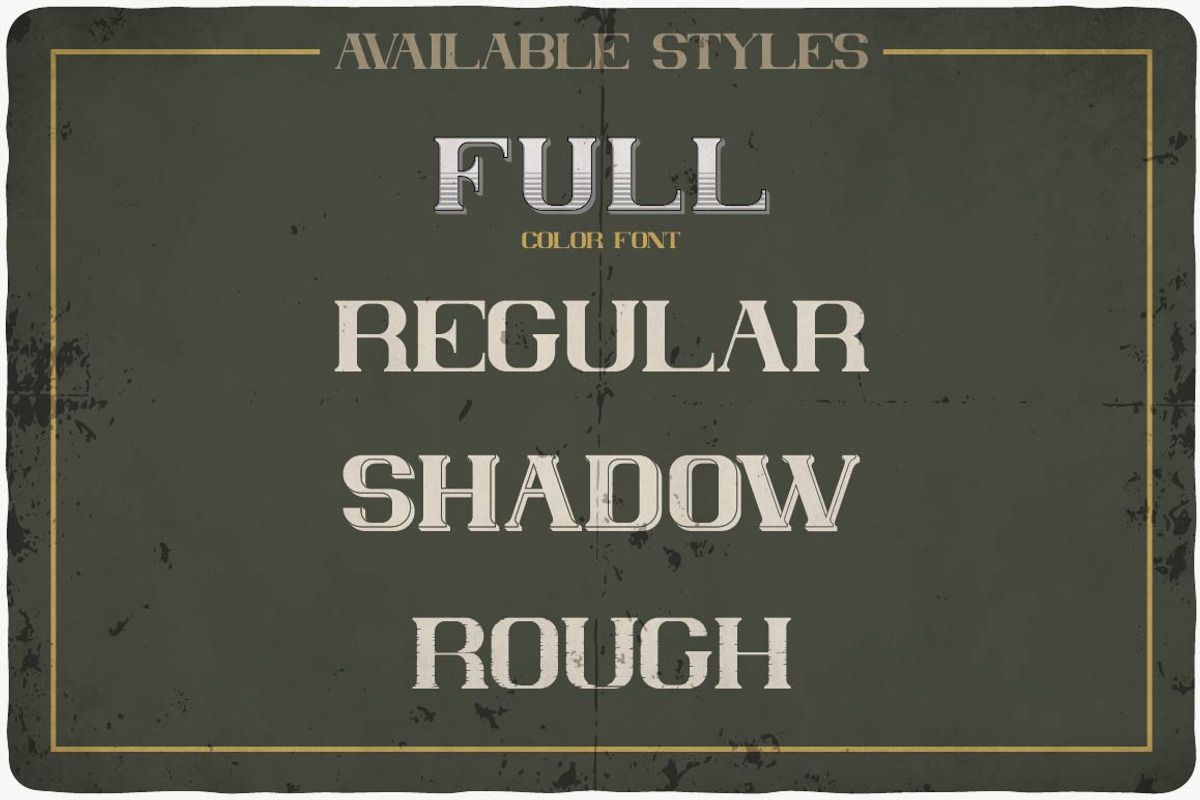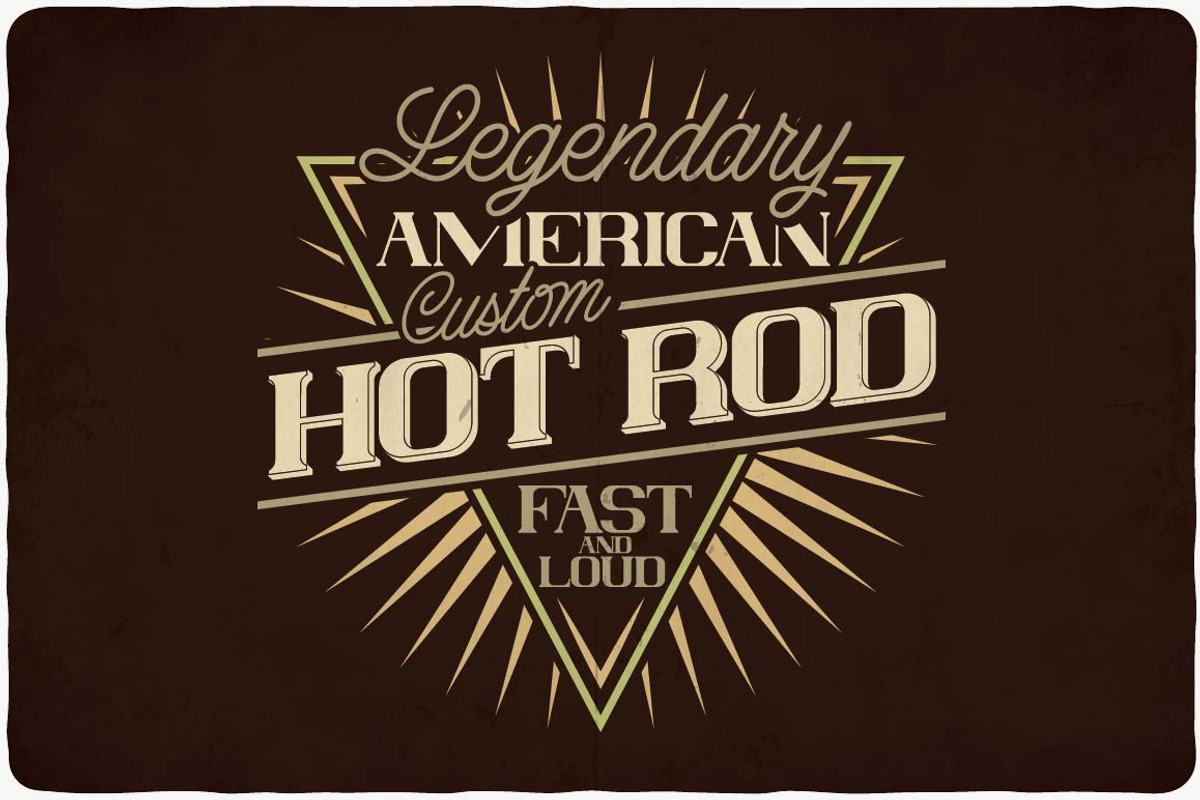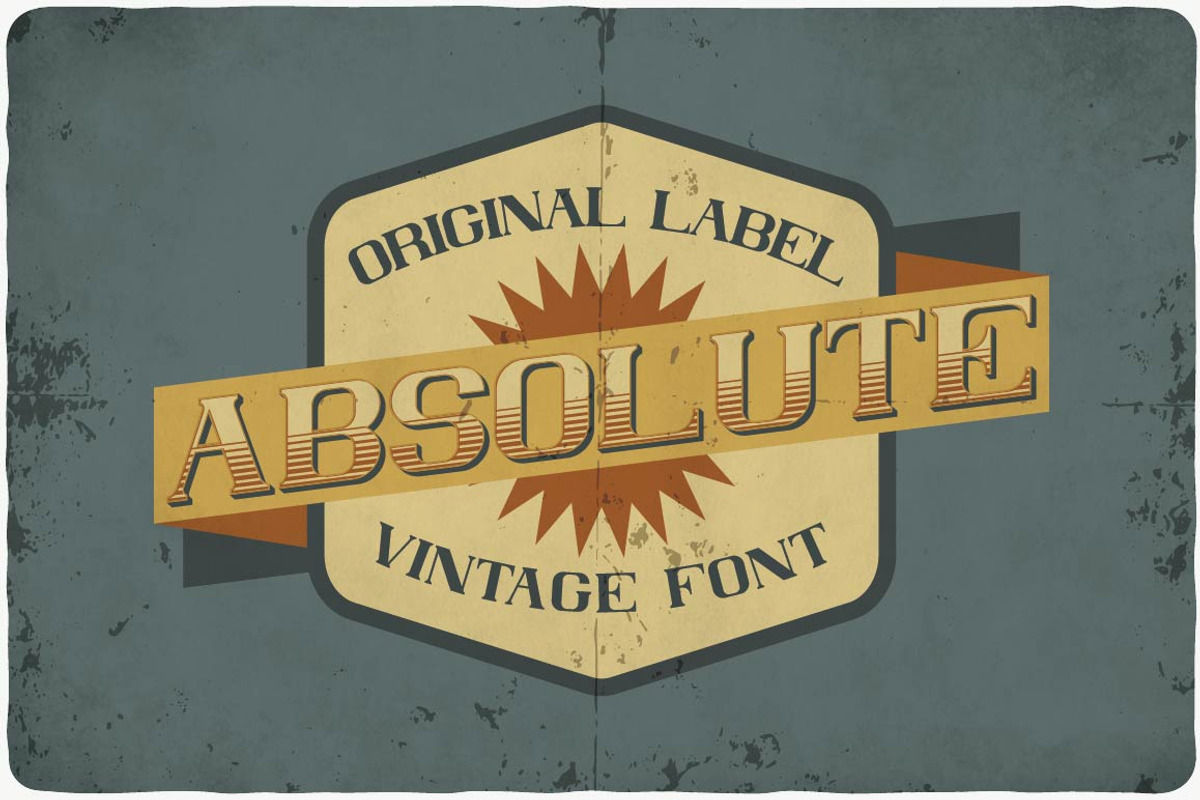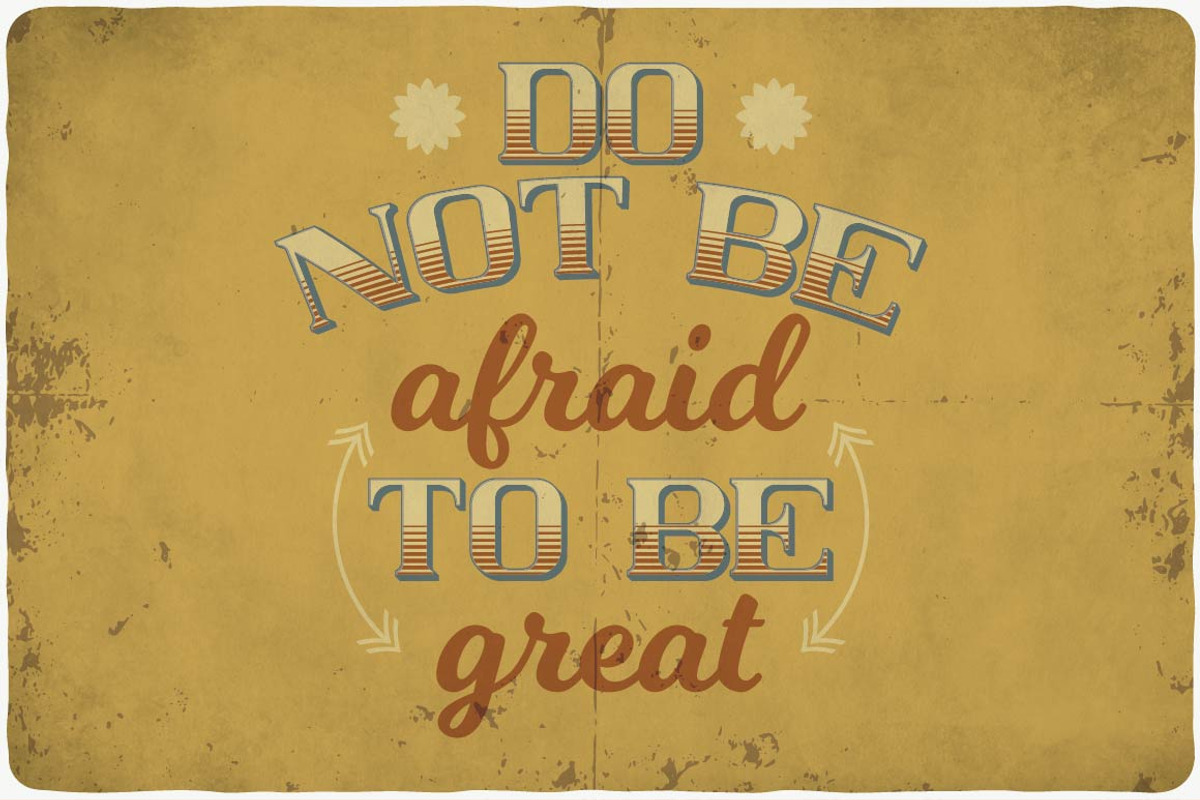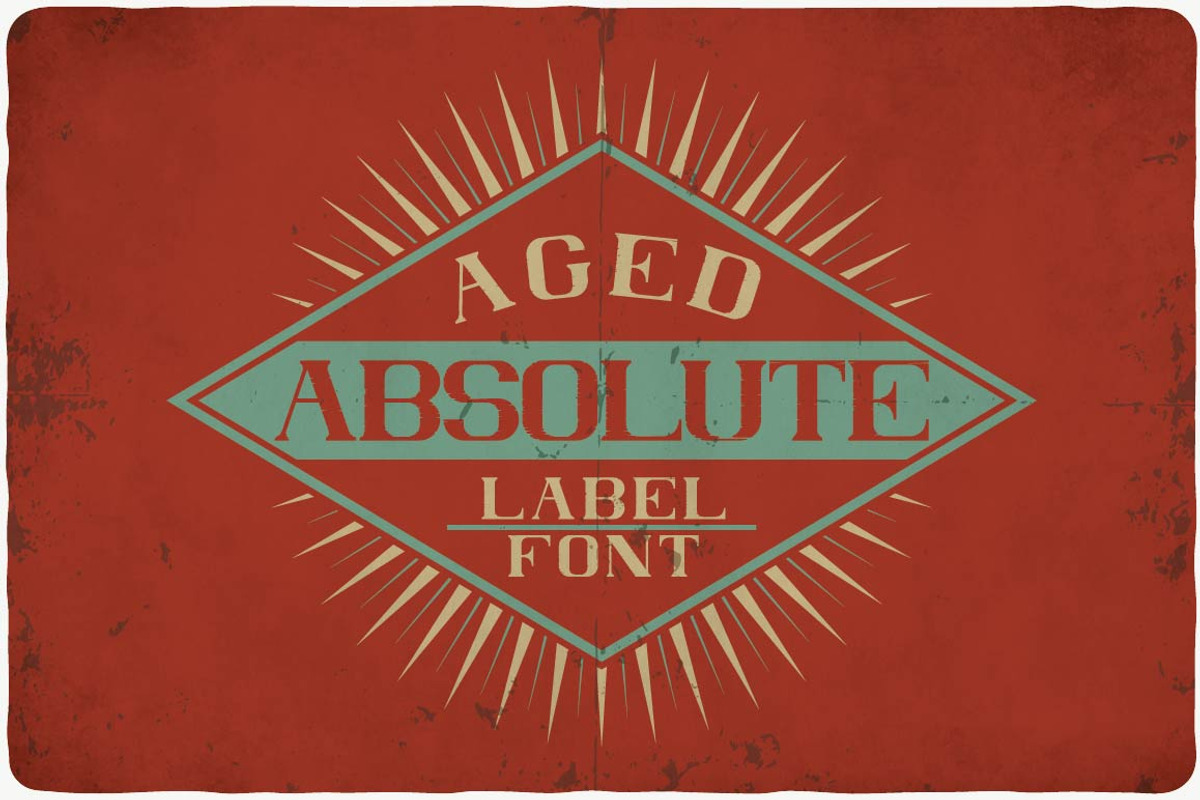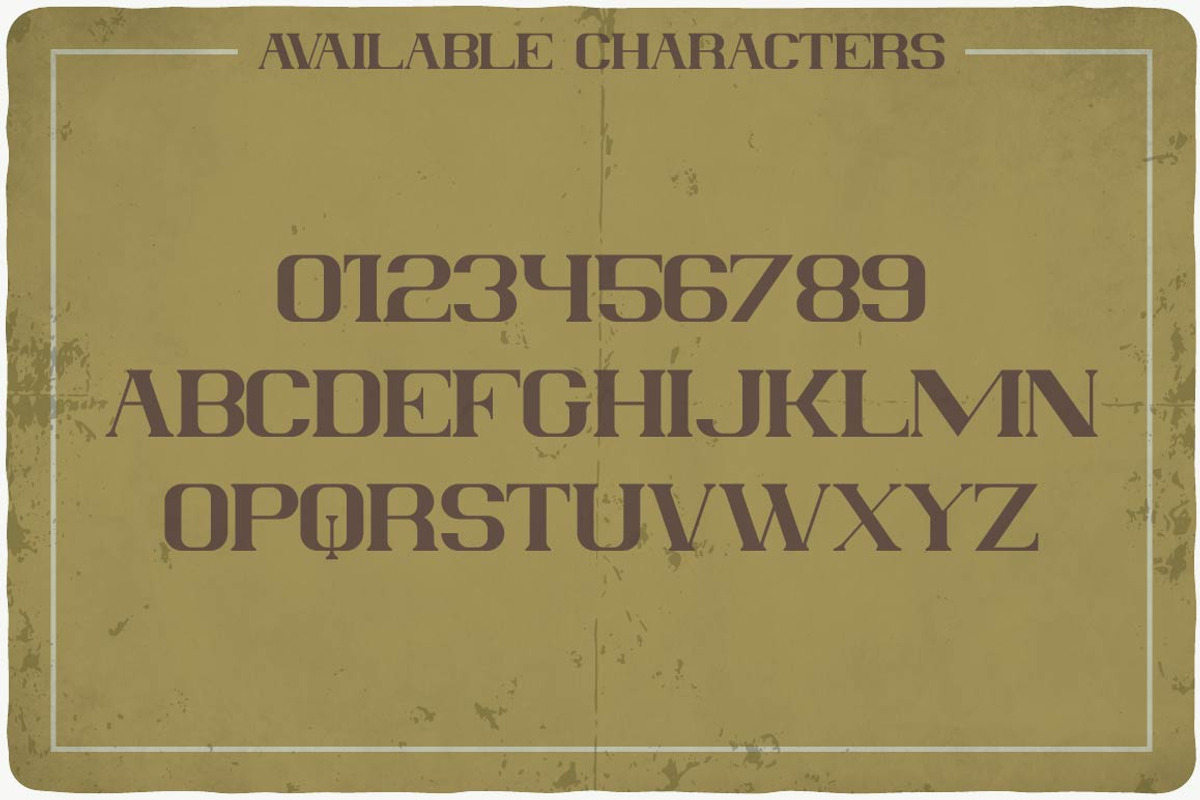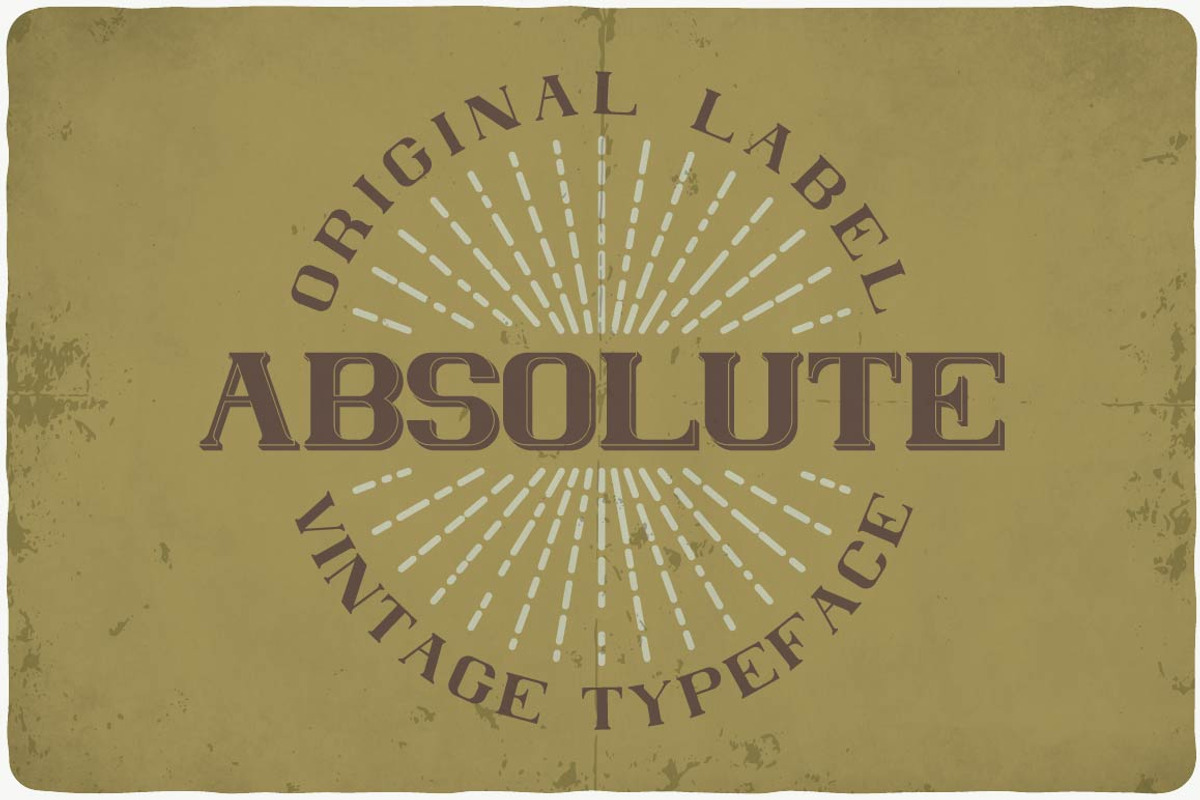
Absolute typeface
Introducing a vintage look label typeface named "Absolute". This typeface includes four styles, for sample look at 5th preview. Typeface will good viewed on any yours design.